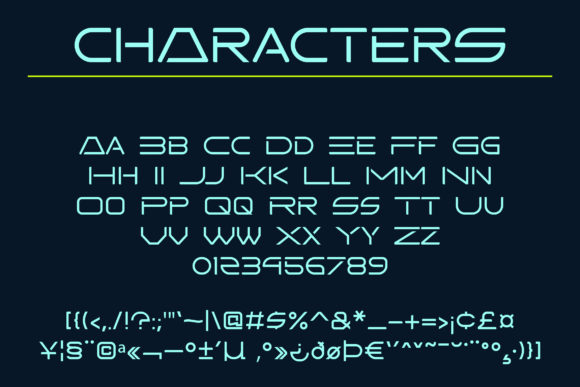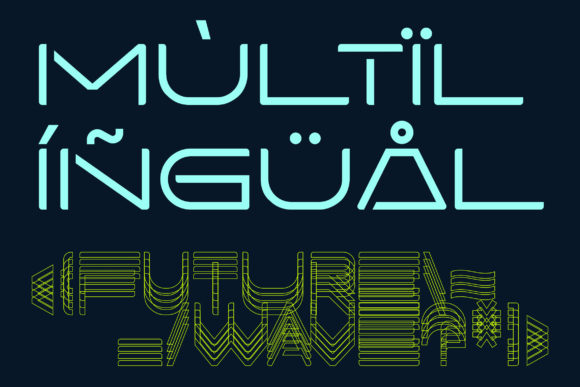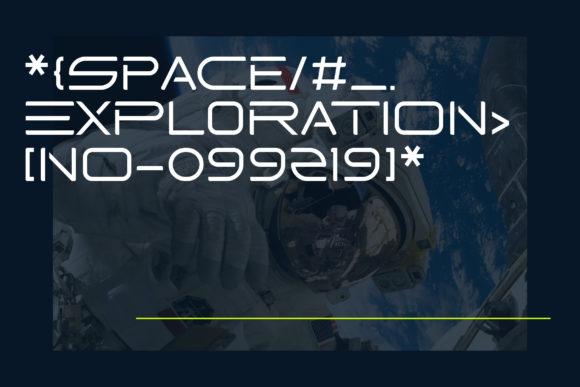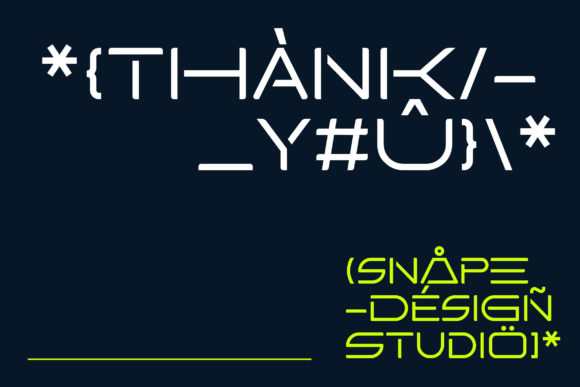
Introduction to Futurewave Font
Futurewave is a modern space futuristic font.
Futurewave is perfect for technology, digital, and space galaxy themes Also suitable for movies, documentaries, films, logos, posters, games, book covers, headlines, titles, and many more projects.
Key Features of Futurewave Font